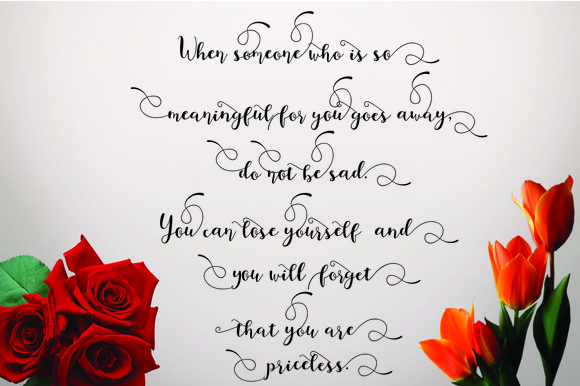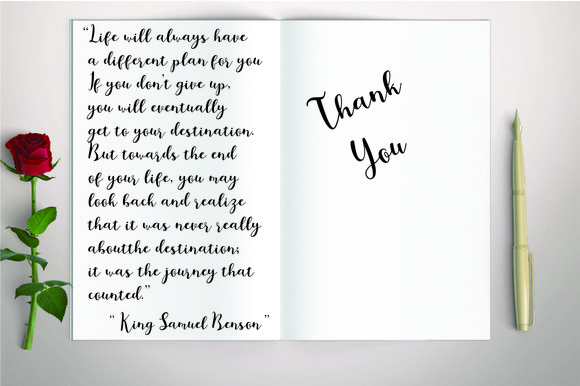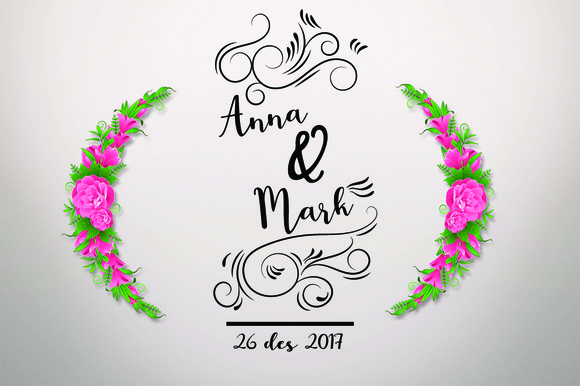
Introduction to Mr. Night Font
Have you ever found yourself stuck in the middle of a creative project, searching for that perfect font to bring your vision to life? You know, that moment when everything feels just out of reach, and all you need is the right design resource to get your imagination flowing. Well, I’m here to tell you that moment is now, thanks to the enchanting Mr. Night Font.
This stunning handmade script typeface is the perfect companion for any creative endeavor, from headings and logos to invitations and t-shirt designs. With its unique charm and high-quality design, Mr. Night Font is the ideal choice for designers looking to add a touch of elegance and sophistication to their projects.
Key Features of Mr. Night Font
- Unique characteristics include a bold, modern aesthetic and a wide range of customization options, making it an excellent choice for creative projects.
Honest Review: Mr. Night Font
As a designer, I’ve come across my fair share of fonts, but Mr. Night Font has truly caught my eye. This unique design resource is perfect for any creative project that requires a touch of sophistication and elegance.
What works well about Mr. Night Font is its high quality and versatility. It’s a perfect fit for projects that require a clean and modern aesthetic. I’ve used it for several designs and it always adds a level of sophistication that I’m looking for.
- ✨ Perfect for creating a high-end feel
One of the limitations of Mr. Night Font is its limited character set. While it’s perfect for titles and headings, it may not be the best choice for body text. Additionally, it’s a bit more difficult to read in smaller font sizes.
Mr. Night Font is a high-quality design resource perfect for any creative project. With its unique aesthetic and transparent background, it’s ideal for adding a touch of elegance to your work.
Tips for Getting the Most Out of Mr. Night Font
To get the most out of Mr. Night Font, use it in conjunction with other high-quality design resources, such as images and graphics. Experiment with different font sizes and colors to create a unique and eye-catching design.
Mr. Night Font is perfect for a variety of creative projects, including:
- Personal branding and logo design
Alternatives to Mr. Night Font
1. Bebas Neue
Bebas Neue is a sans-serif font perfect for creative projects that require a modern and clean design. It’s ideal for use in digital design, such as mobile apps, websites, and social media graphics. Bebas Neue offers a high-quality design with a transparent background, making it suitable for overlaying text on images.
Compared to Mr. Night Font, Bebas Neue has a more minimalist and neutral aesthetic, which can be beneficial for designers who want to avoid the bold and dramatic feel of Mr. Night Font. Bebas Neue is also available for free download and can be used in a variety of design contexts.
Pacifico is a beautiful script font that’s perfect for design projects that require a touch of elegance and sophistication. It’s ideal for use in wedding invitations, branding materials, and other creative projects where a high-quality, handwritten font is needed. Pacifico offers a high-quality design with a transparent background, making it suitable for overlaying text on images.
Compared to Mr. Night Font, Pacifico has a more refined and sophisticated aesthetic, which can be beneficial for designers who want to add a touch of luxury to their design projects. Pacifico is also available for free download and can be used in a variety of design contexts.
Great Vibes is a beautiful script font that’s perfect for design projects that require a fun and playful vibe. It’s ideal for use in social media graphics, blog posts, and other creative projects where a high-quality, handwritten font is needed. Great Vibes offers a high-quality design with a transparent background, making it suitable for overlaying text on images.